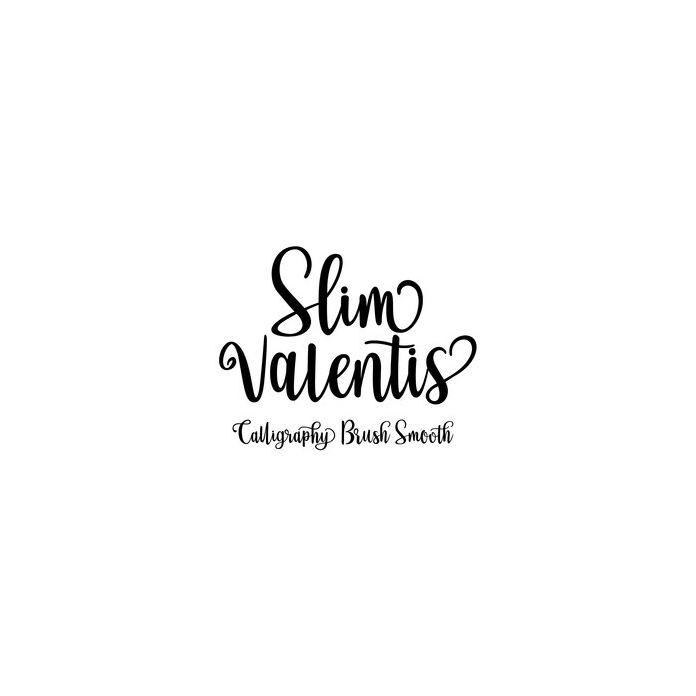
Slim Valentis is a beautiful Charming calligraphy font that is now available for anyone who wants to use it for a beautiful start to the year. Perfect for projects, products, crafts, invitations and personalization. Includes alphabet, numbers, and punctuation.